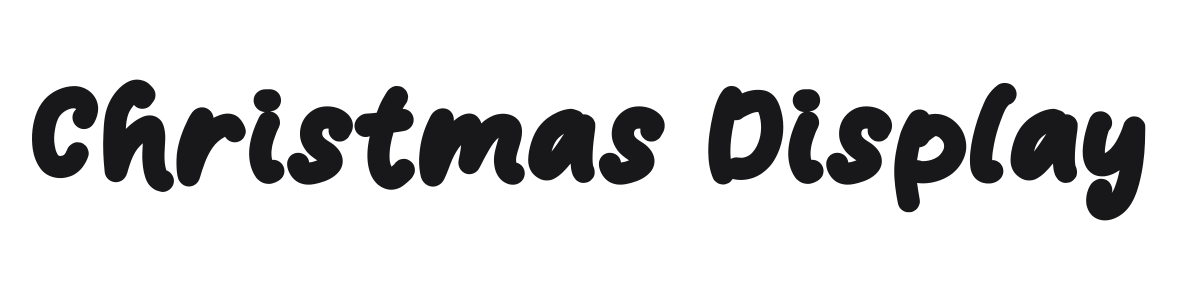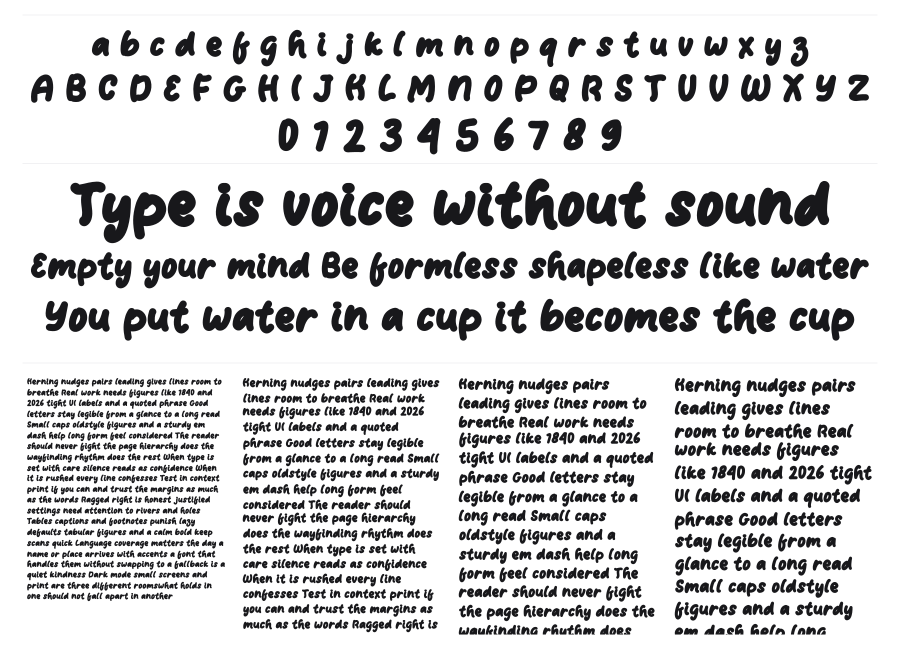
Christmas Display
Christmas Display is a bold, rounded casual script with thick strokes and a warm, hand-painted energy. The chunky connected characters and generous curves give it an approachable, festive personality that reads clearly at large sizes. It leans into the celebratory spirit of seasonal design without feeling overwrought.